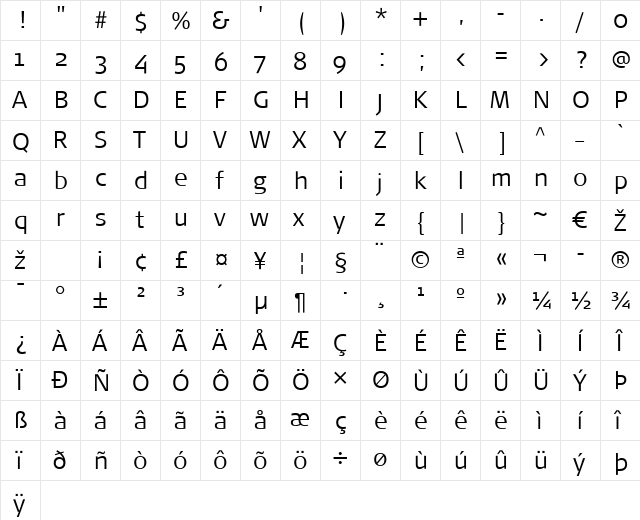
SignaNormal-Light Regular Font Preview
SignaNormal-Light Regular
SignaNormal-Light Regular Font Details
| Designer | Ole Soendergaard |
Design Context for SignaNormal-Light Typeface
SignaNormal-Light is a composed and adaptable typeface that performs quietly and consistently across a wide range of design contexts. Its slender proportions lend an understated elegance to any composition.